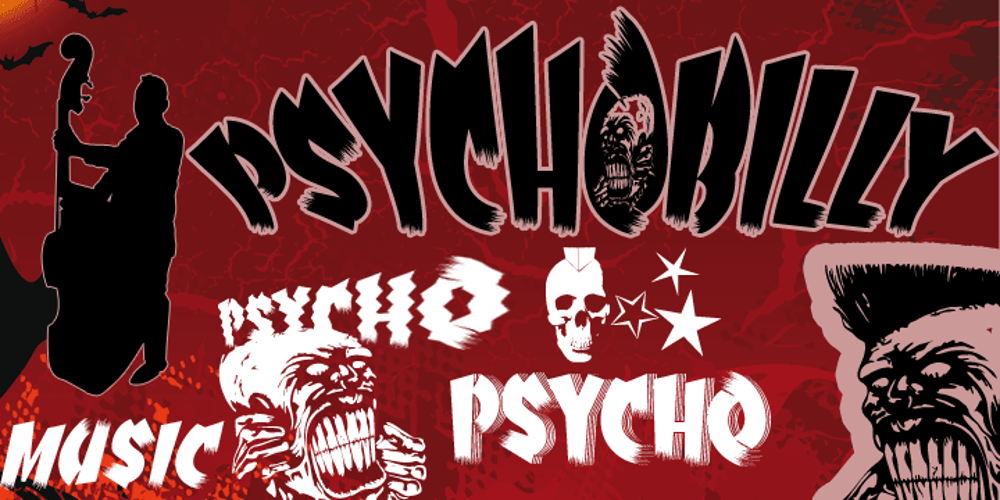
Psychobilly Font Family was designed by published by Otto Maurer. Psychobilly contains 10 styles and family package options. Psychobilly is a freaky font.